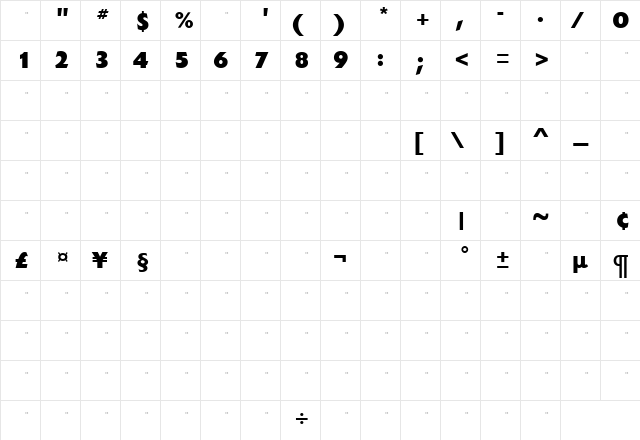
ExtensionExtraBoldTab Roman
Design Context for ExtensionExtraBoldTab Typeface
ExtensionExtraBoldTab offers clean, dependable letterforms without strong stylistic allegiance, making it a practical choice for designers who need flexibility. The heavy weight commands attention and anchors typographic hierarchies.